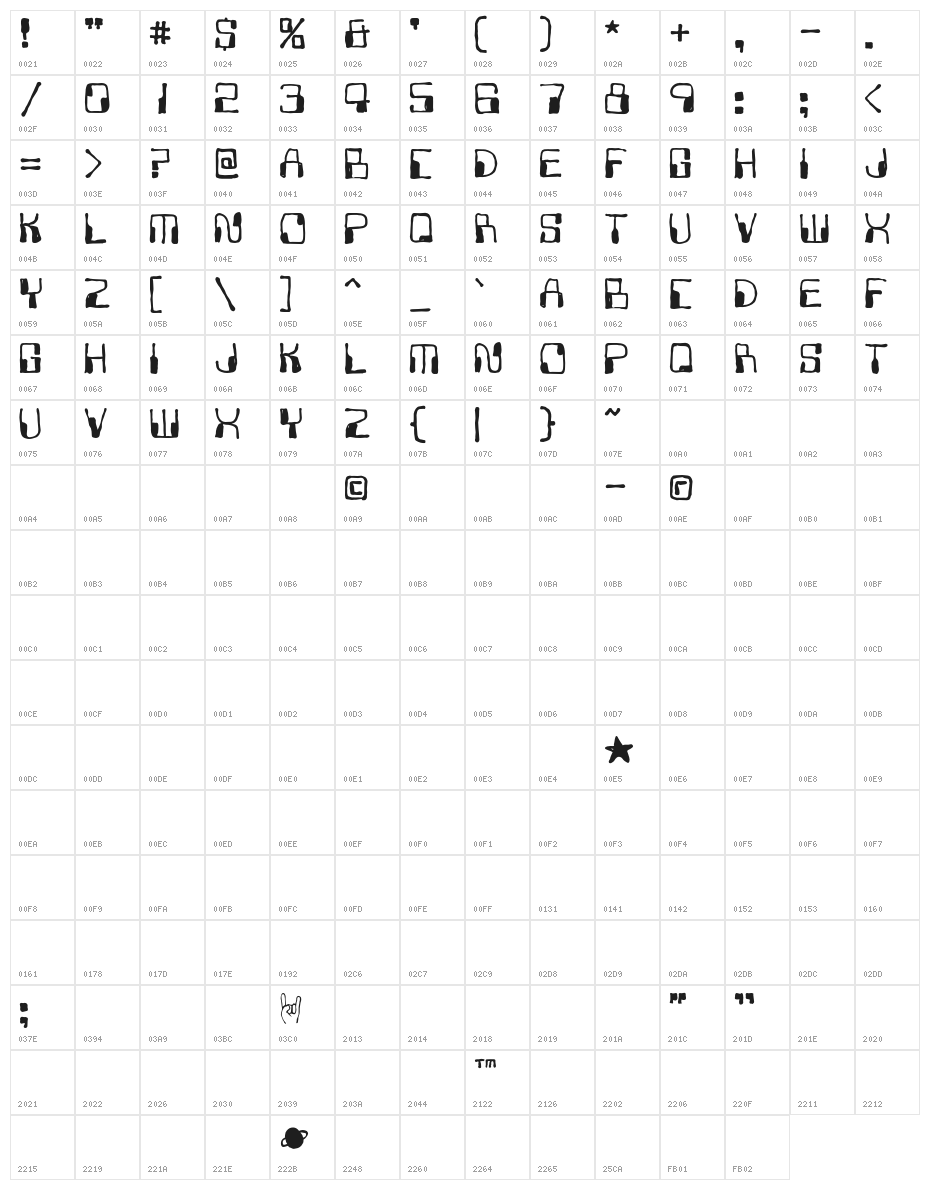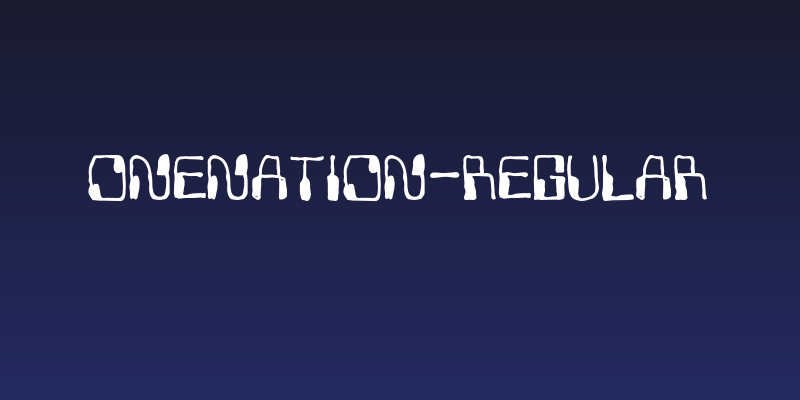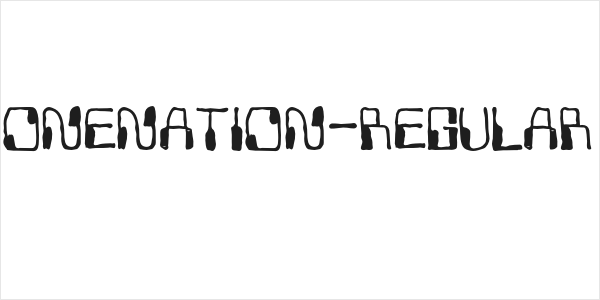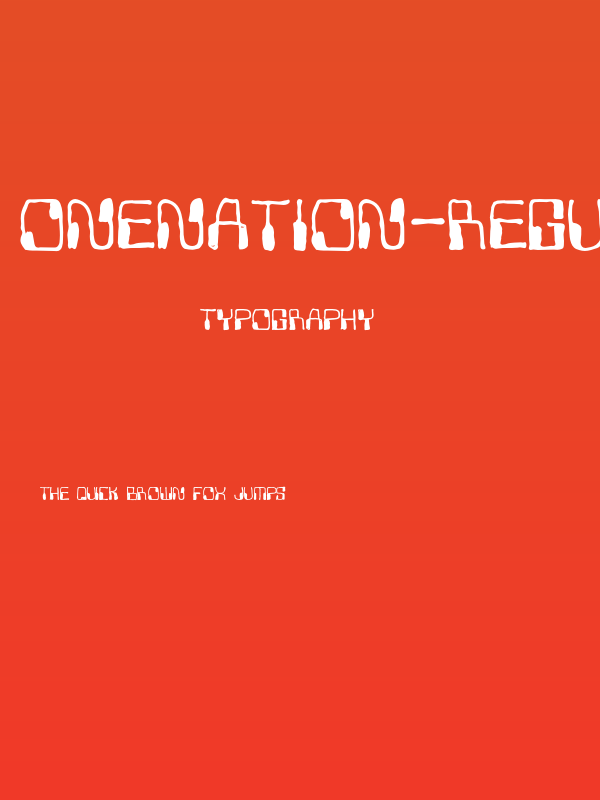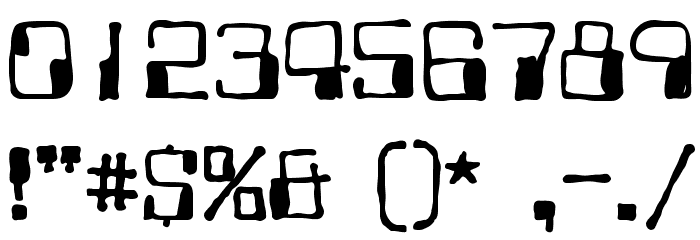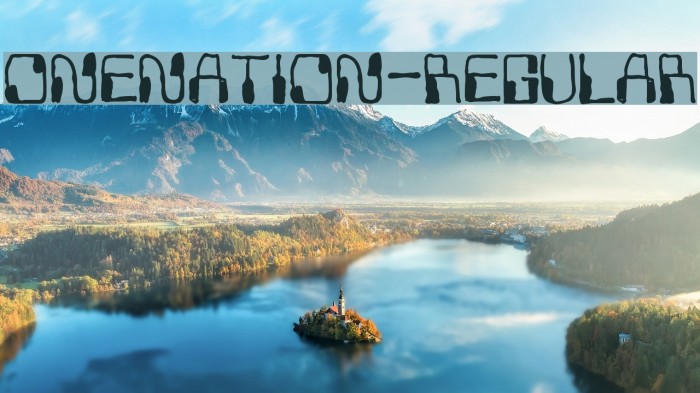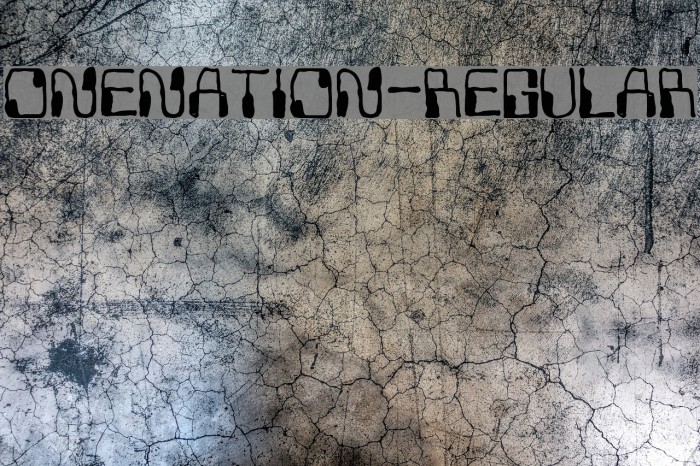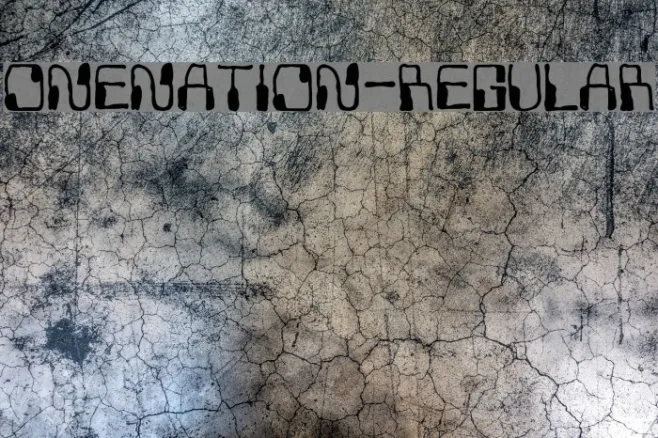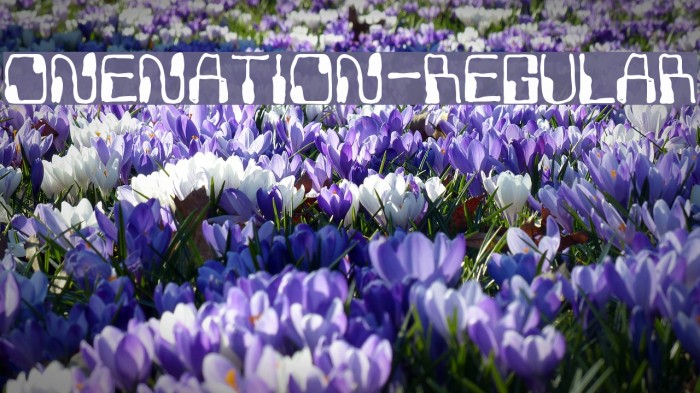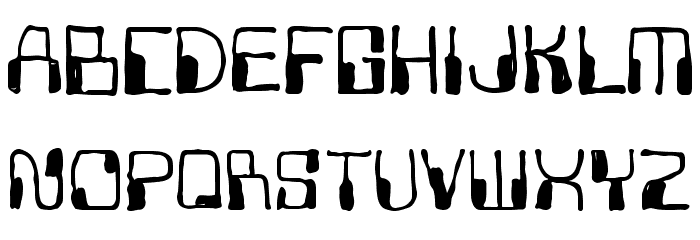
OneNation-Regular Font
OneNation-Regular Description
This font features a unique and bold design with a distressed, grunge-like appearance. The characters are irregularly shaped, with uneven edges and a hand-drawn feel, giving it a raw and edgy look. The uppercase and lowercase letters maintain a consistent style, with a slightly condensed form. The numbers and special characters follow the same aesthetic, ensuring a cohesive look across all glyphs. This font's distinctive style makes it stand out, suitable for projects that require a strong visual impact.
| Overall Style | Grunge, Edgy, Hand-drawn |
| Proposed Projects | Ideal for album covers, posters, streetwear branding, and edgy graphic design projects. |